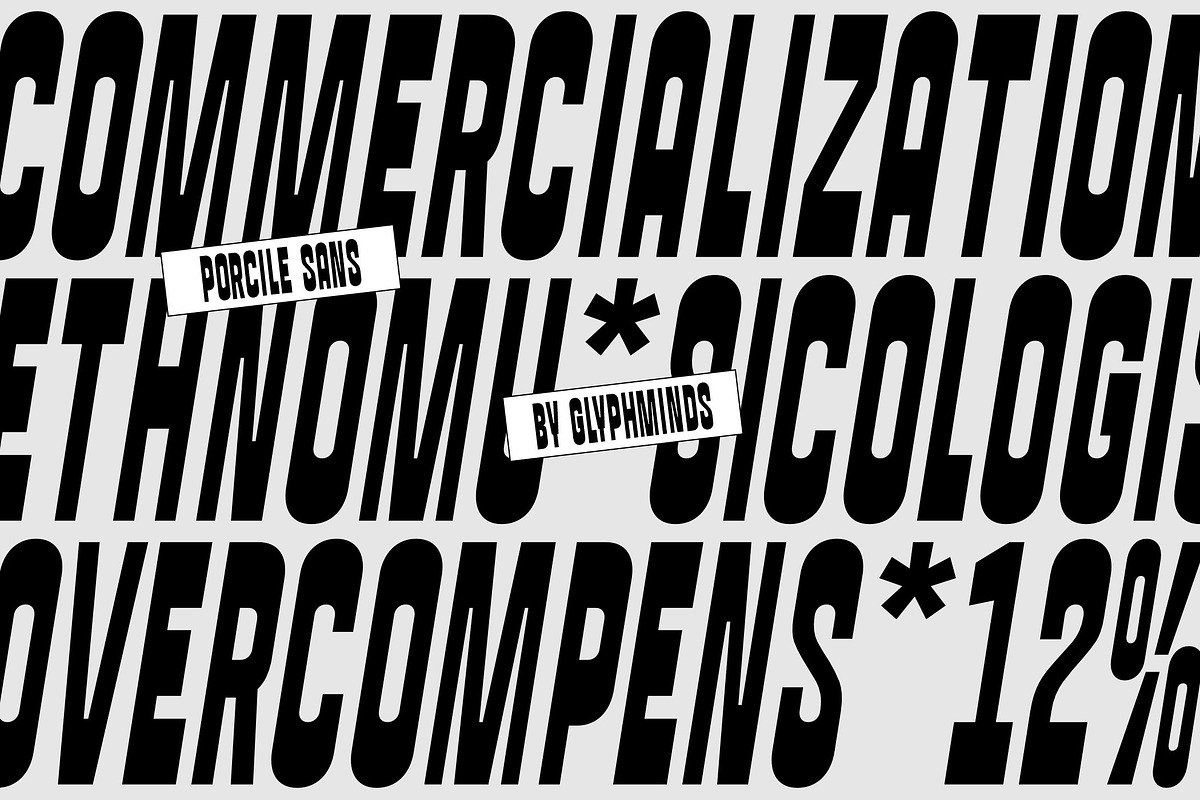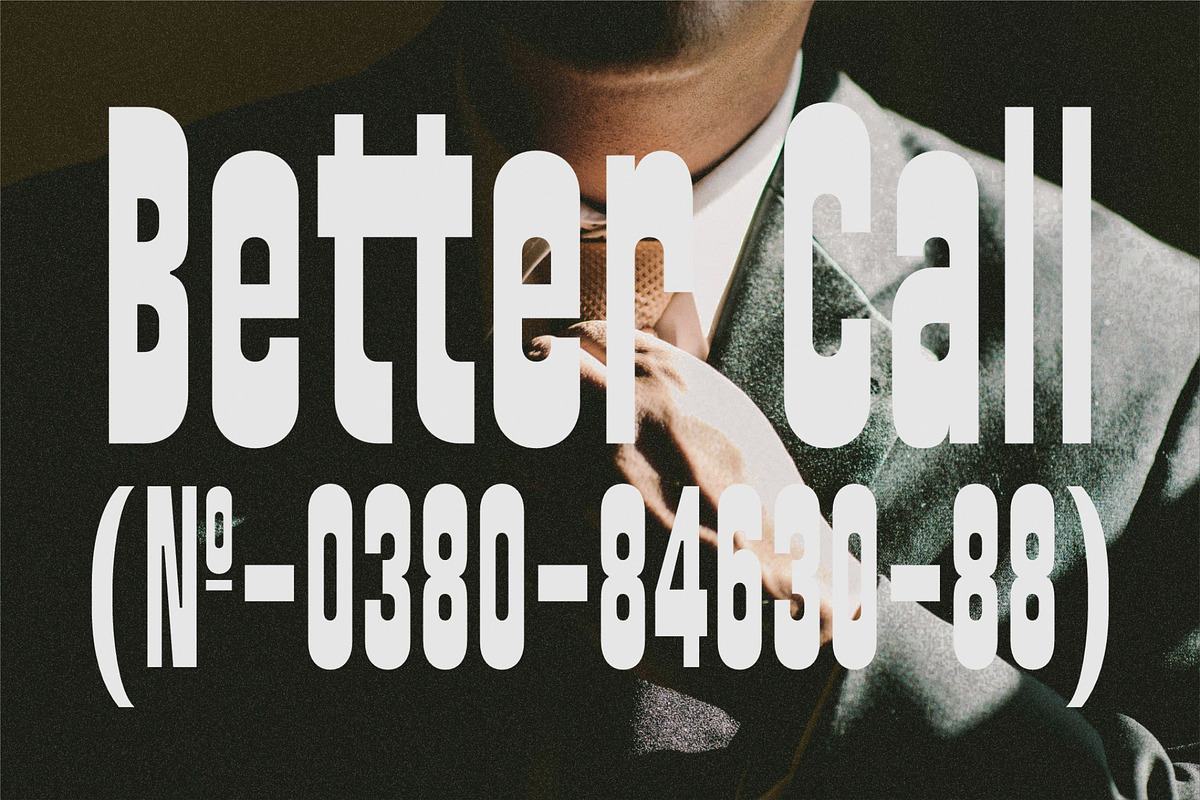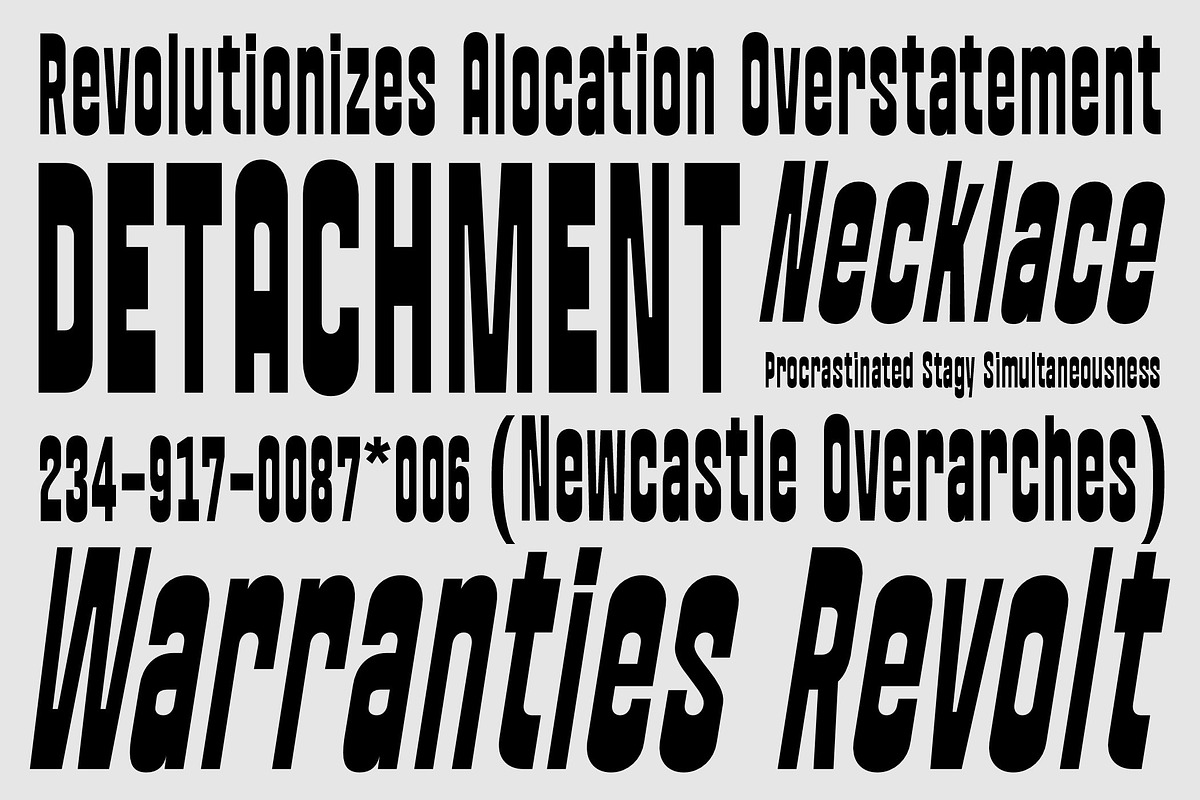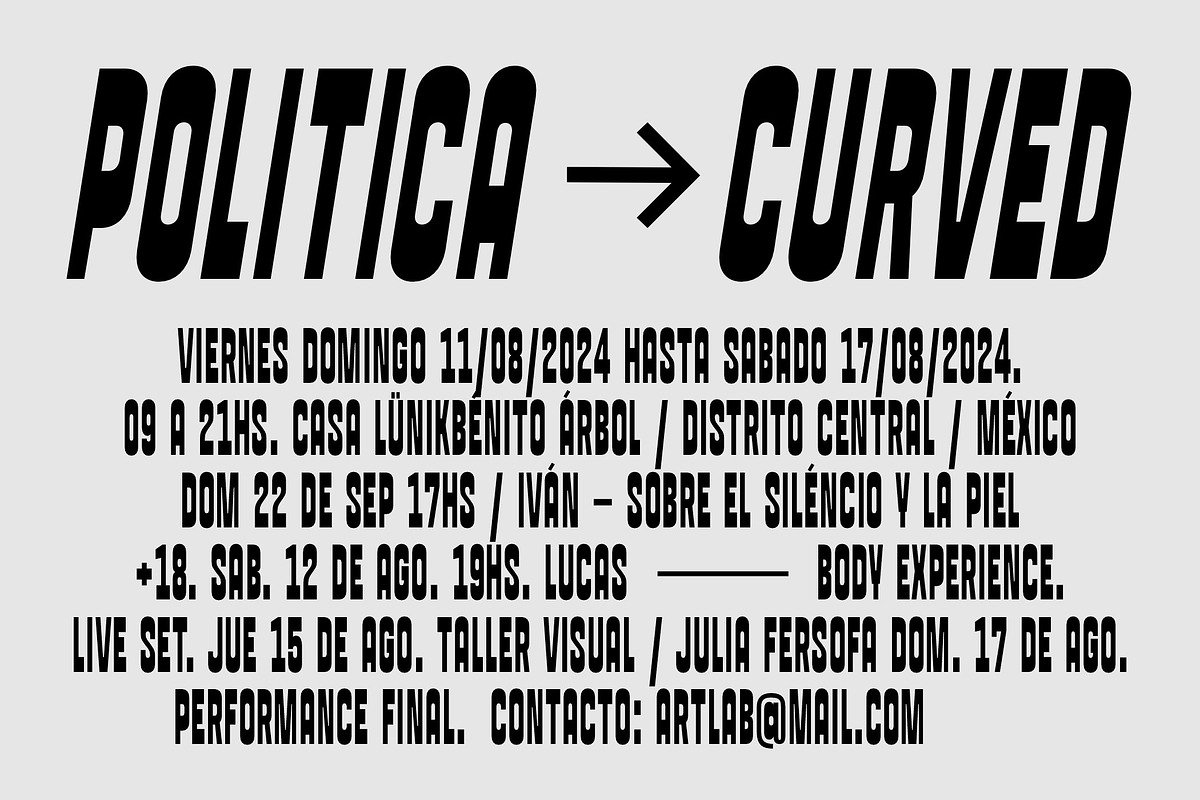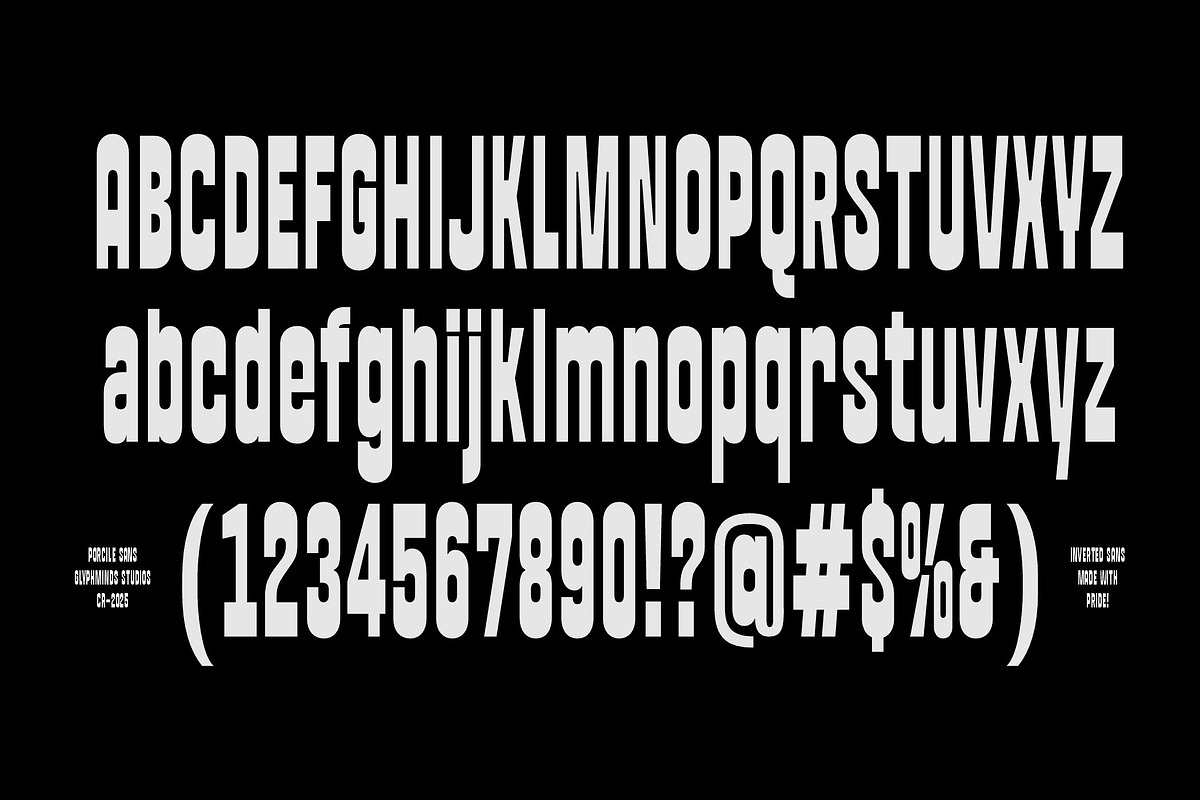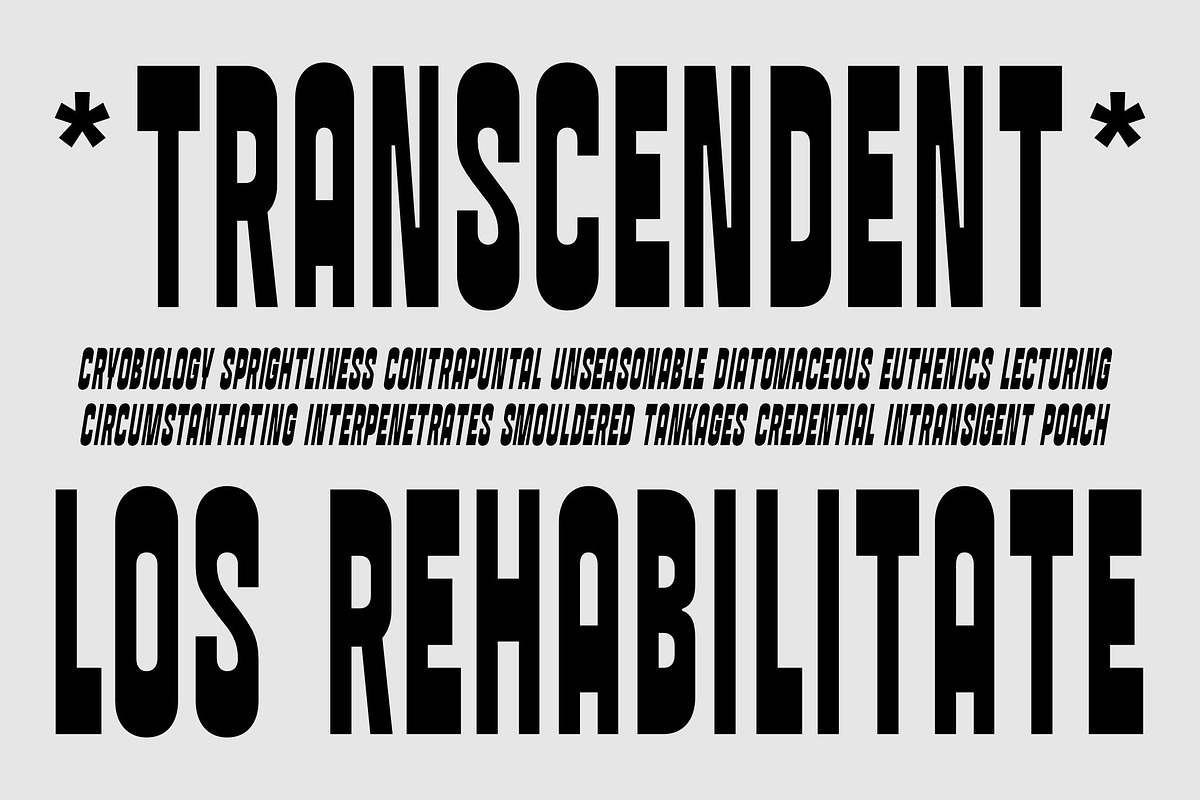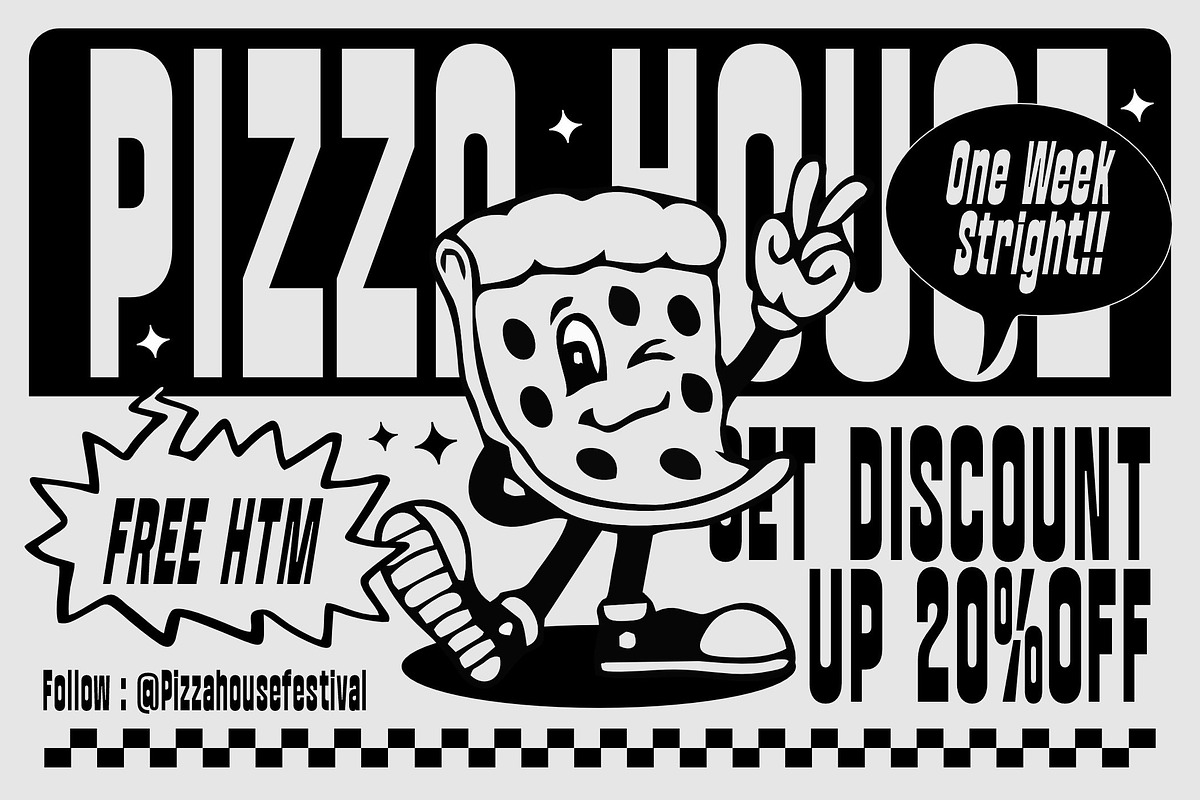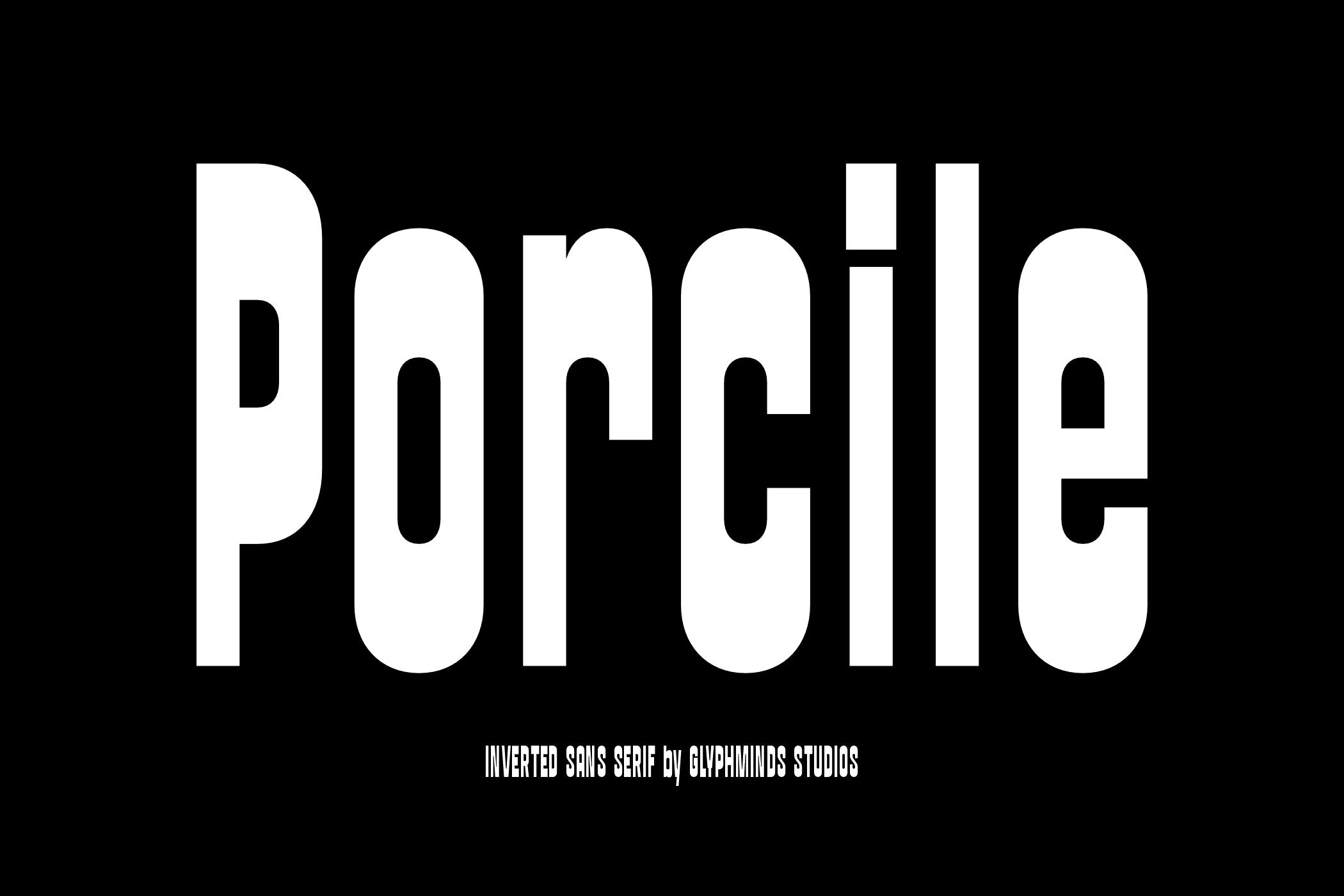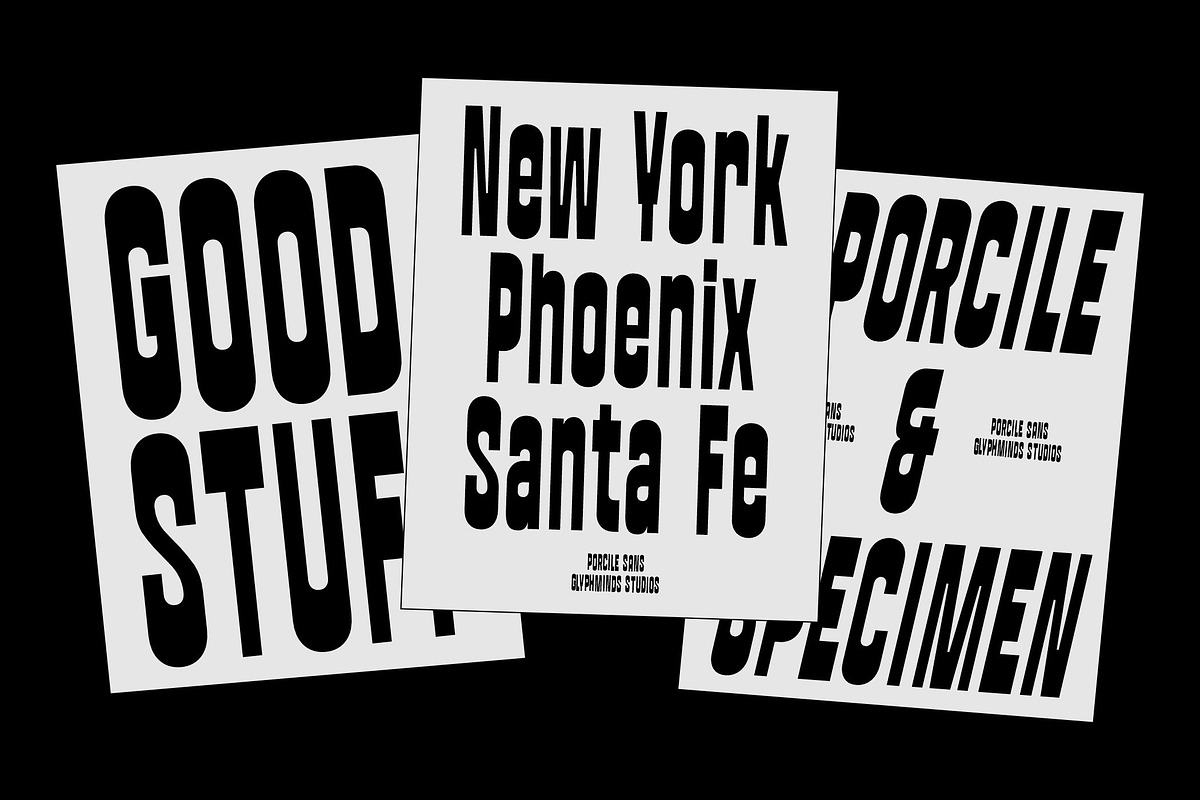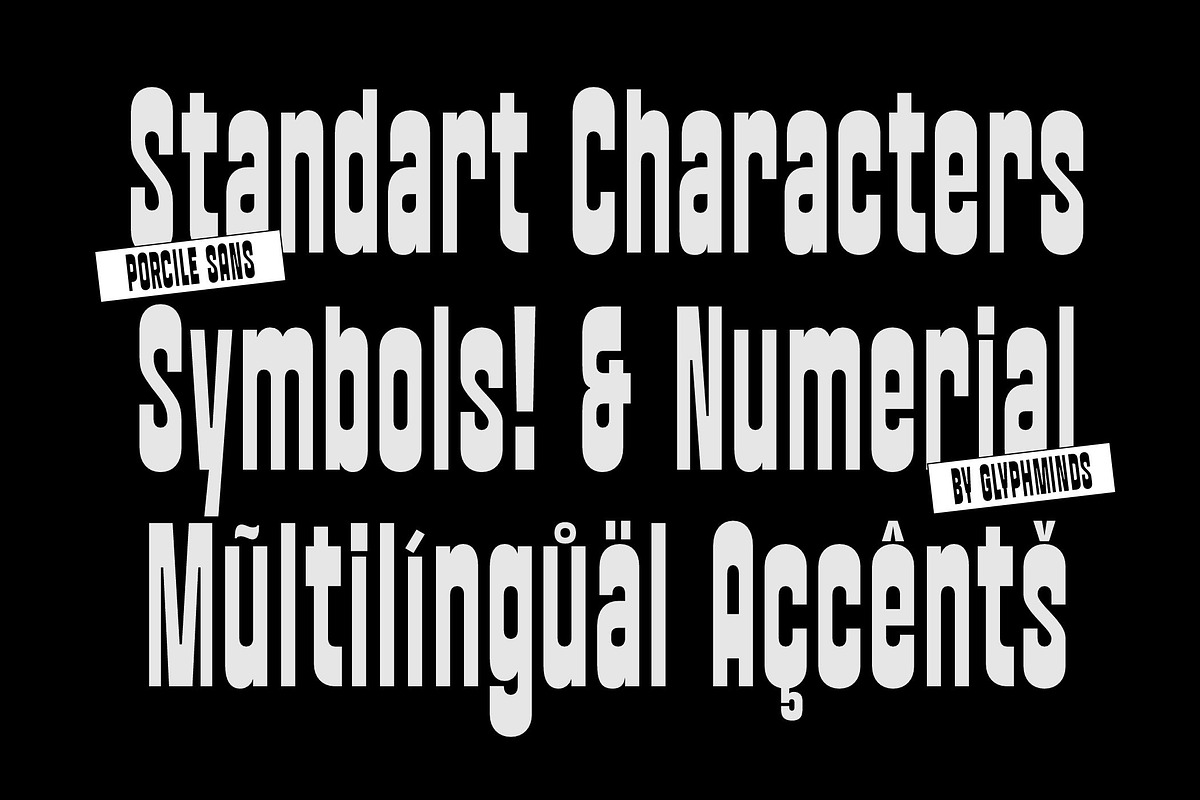
Porcile Font
Porcile: Maximize Impact, Minimize Space.
Meet Porcile, the Inverted Sans Serif that dominates any layout.
Designed for maximum visual density, Porcile is an ultra-heavy, condensed display typeface built for commanding headlines. Its imposing structure and super-tight kerning squeeze a massive message into minimal horizontal space, making it an essential tool for designers tackling everything from high-rise billboards to album sleeves.
Porcile balances raw power with clean design. While its heavy weight and verticality give it a brutalist, uncompromising feel, the subtly rounded corners soften the edge, ensuring it remains versatile for modern branding, apparel, and digital media.
🔊 Features that Command Attention:
- Inverted/Condensed Design: Optimized for huge, vertical headlines without spreading too wide.
- Ultra-Heavy Weight: Delivers undeniable visual impact and readability at large sizes.
- 2 Essential Styles: Includes Regular and Slant (or Italic) for dynamic variations.
- Modern & Bold: Perfect for music, streetwear, gaming, and edgy brand identity.
Stop whispering in your designs—start shouting with the unstoppable force of Porcile!